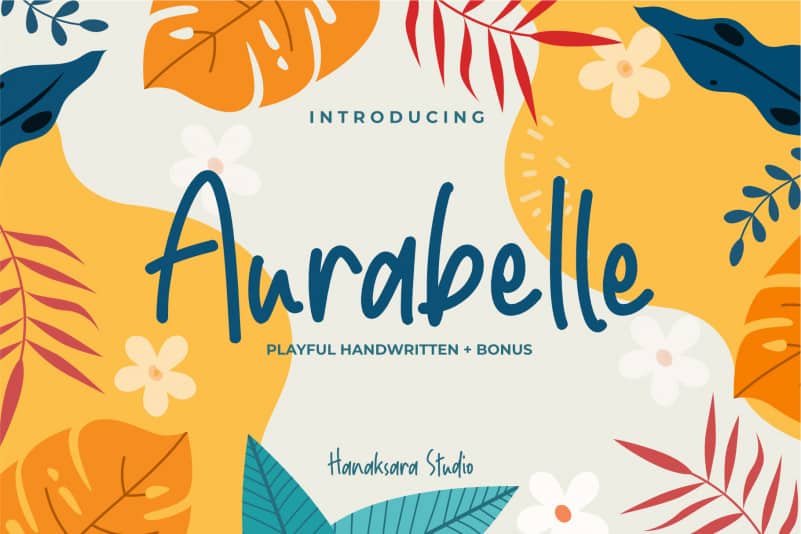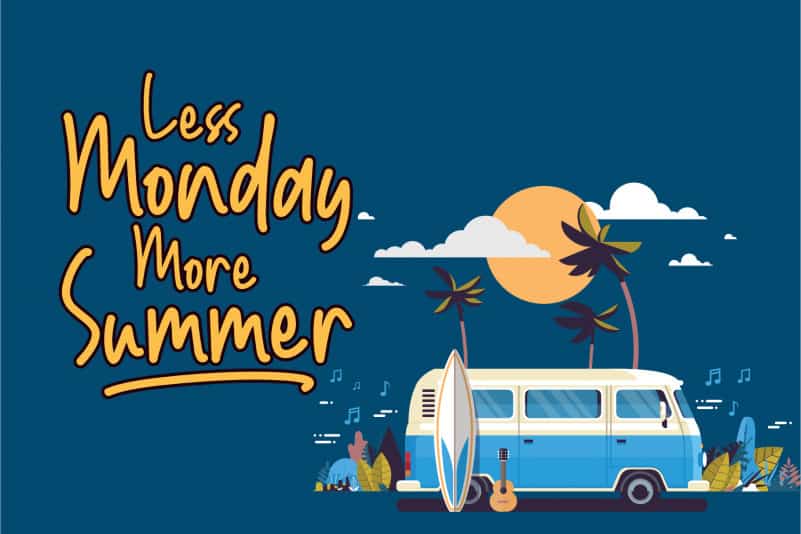
Aurabelle Handwritten Font
Introducing, Aurabelle Handwritten Font!  This font is reallt suitable for tshirt design, kids book, Invitation details, mug design, craft, or anything